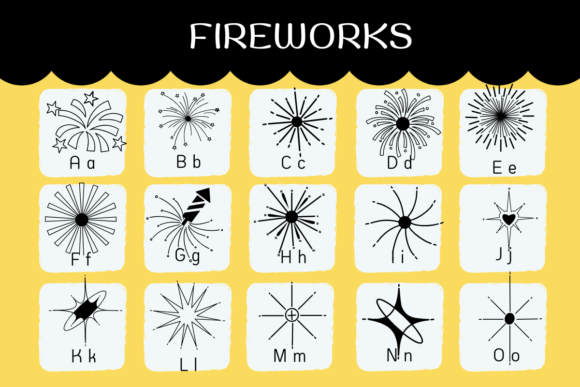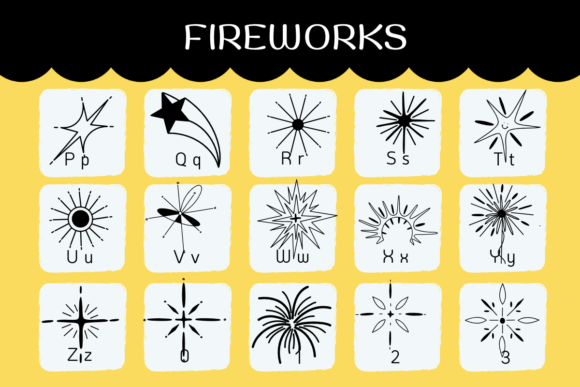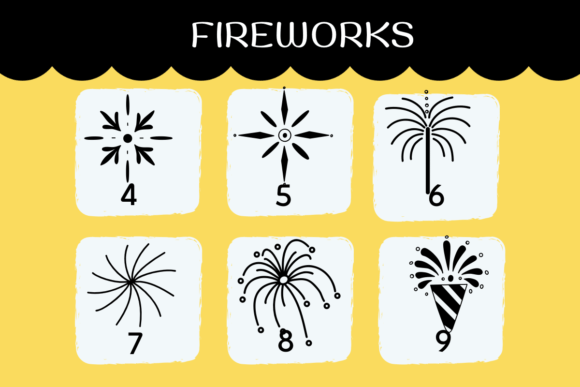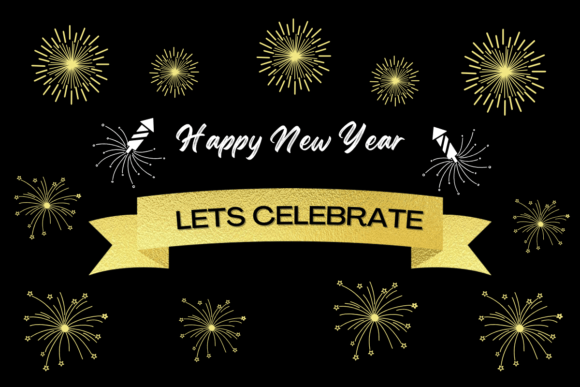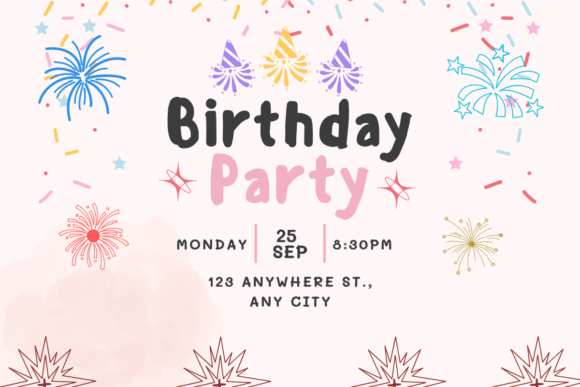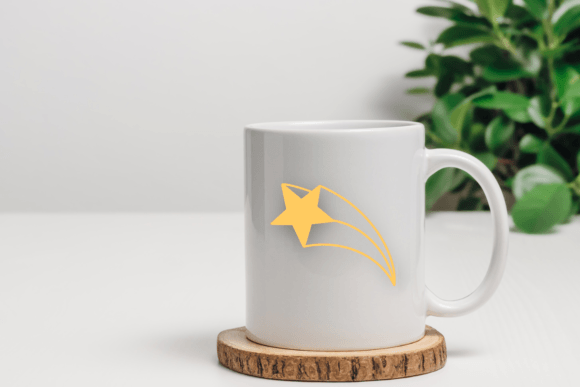
Fireworks Font: Elevate Your Creative Projects with a Sketched Theme
Are you looking for a unique and creative font to enhance your projects? Look no further than the Fireworks Font, a dingbats font with a sketched theme that’s perfect for designers, crafters, and DIY enthusiasts. In this article, we’ll explore the features and benefits of Fireworks Font, and show you how it can elevate your creative projects.
What is Fireworks Font?
Fireworks Font is a dingbats font that features a sketched theme, giving it a charming and hand-drawn feel. The font is designed to add a touch of whimsy and personality to your projects, making it perfect for creative endeavors such as wedding invitations, DIY crafts, decorations, logos, and more.
Features of Fireworks Font
- Sketched theme: The font features a unique sketched theme that gives it a hand-drawn feel.
- Dingbats font: Fireworks Font is a dingbats font, which means it’s made up of symbols and icons rather than traditional letters and numbers.
- Versatile: The font is versatile and can be used for a wide range of creative projects.
Benefits of Using Fireworks Font
So why choose Fireworks Font for your creative projects? Here are just a few benefits of using this unique font:
- Adds personality: Fireworks Font adds a touch of personality and whimsy to your projects, making them stand out from the crowd.
- Perfect for DIY projects: The font is perfect for DIY projects, such as wedding invitations, crafts, and decorations.
- Customizable: Fireworks Font can be customized to fit your needs, making it easy to use in a variety of contexts.
- Unique: The font is unique and eye-catching, making it perfect for designers and crafters who want to create something truly special.
Ideas for Using Fireworks Font
So what can you create with Fireworks Font? Here are just a few ideas to get you started:
- Wedding invitations: Use Fireworks Font to create beautiful and unique wedding invitations that set the tone for your special day.
- DIY crafts: Add a touch of personality to your DIY crafts, such as handmade cards, gift tags, and decorations.
- Logos: Use Fireworks Font to create a unique and eye-catching logo for your business or brand.
- Decorations: Create custom decorations, such as garlands, banners, and signs, using Fireworks Font.
Tips for Using Fireworks Font
Here are a few tips for using Fireworks Font in your creative projects:
- Experiment with colors: Fireworks Font looks great in a variety of colors, so don’t be afraid to experiment and find the perfect hue for your project.
- Mix and match: Combine Fireworks Font with other fonts and graphics to create a unique and eye-catching design.
- Pay attention to scale: Make sure to adjust the scale of Fireworks Font to fit your project, and don’t be afraid to get creative with font sizes and styles.